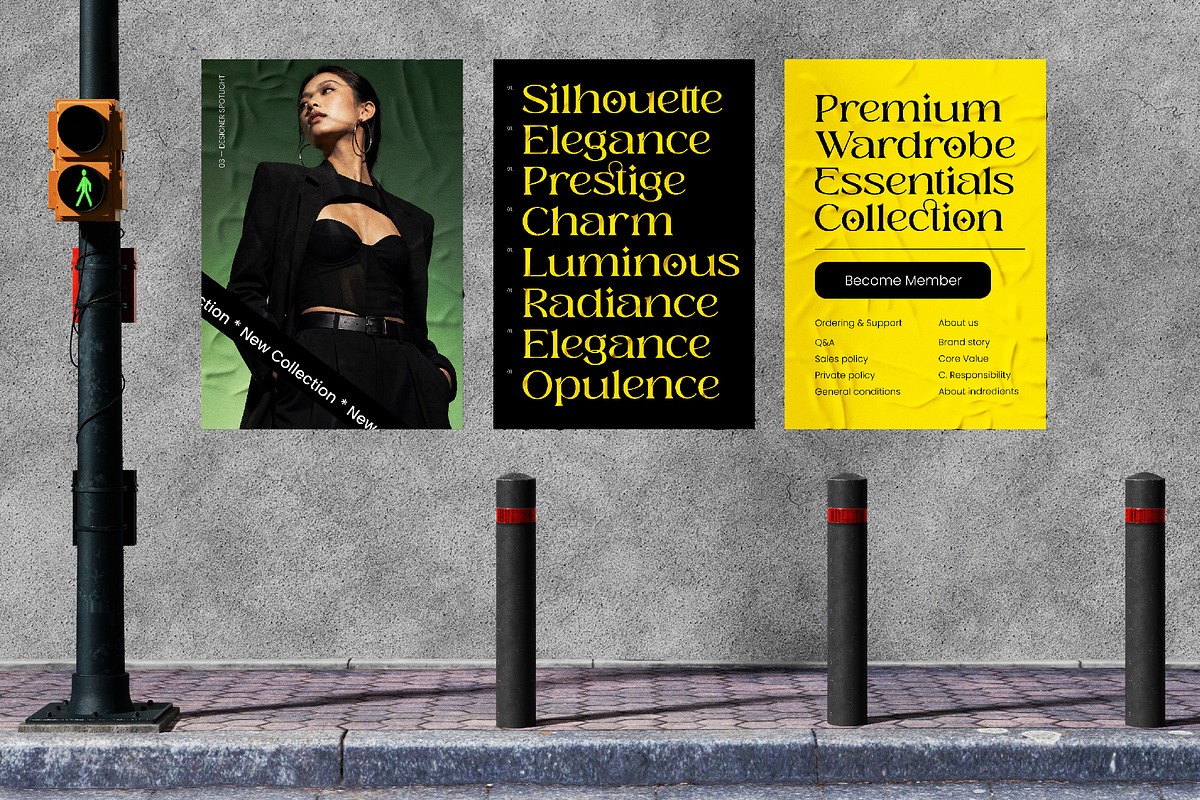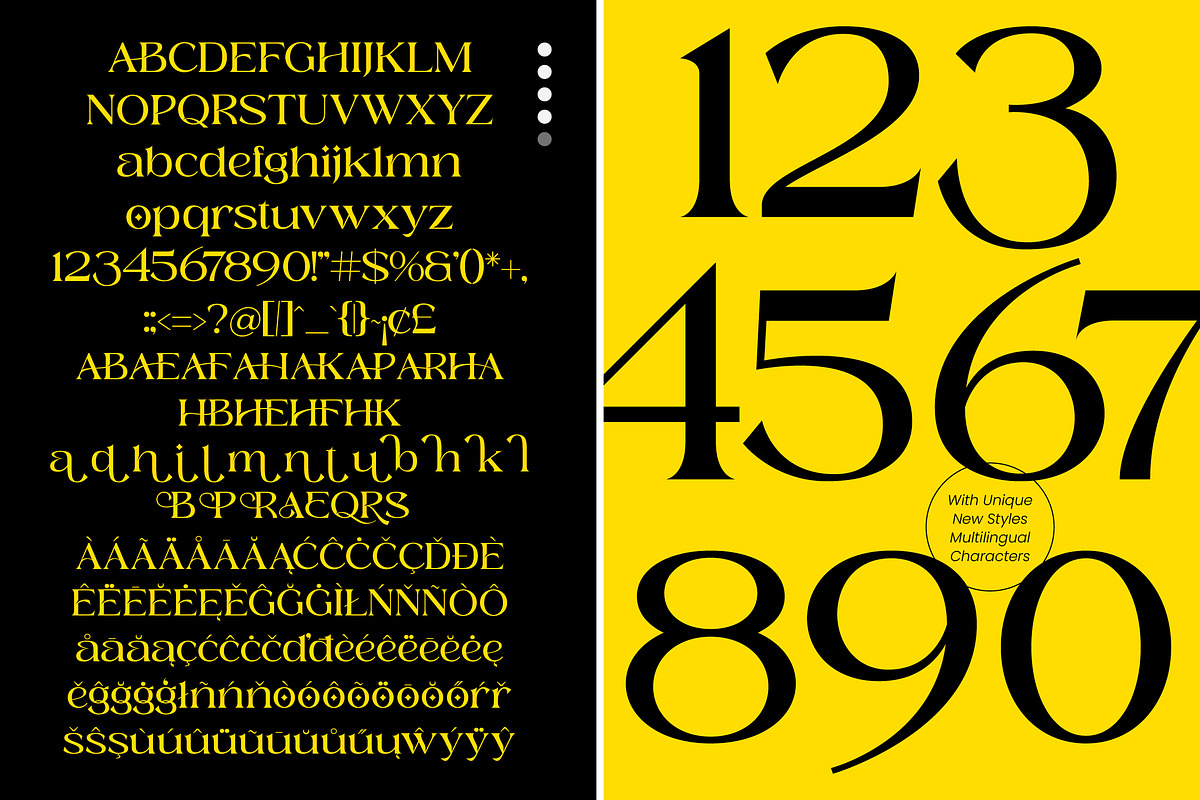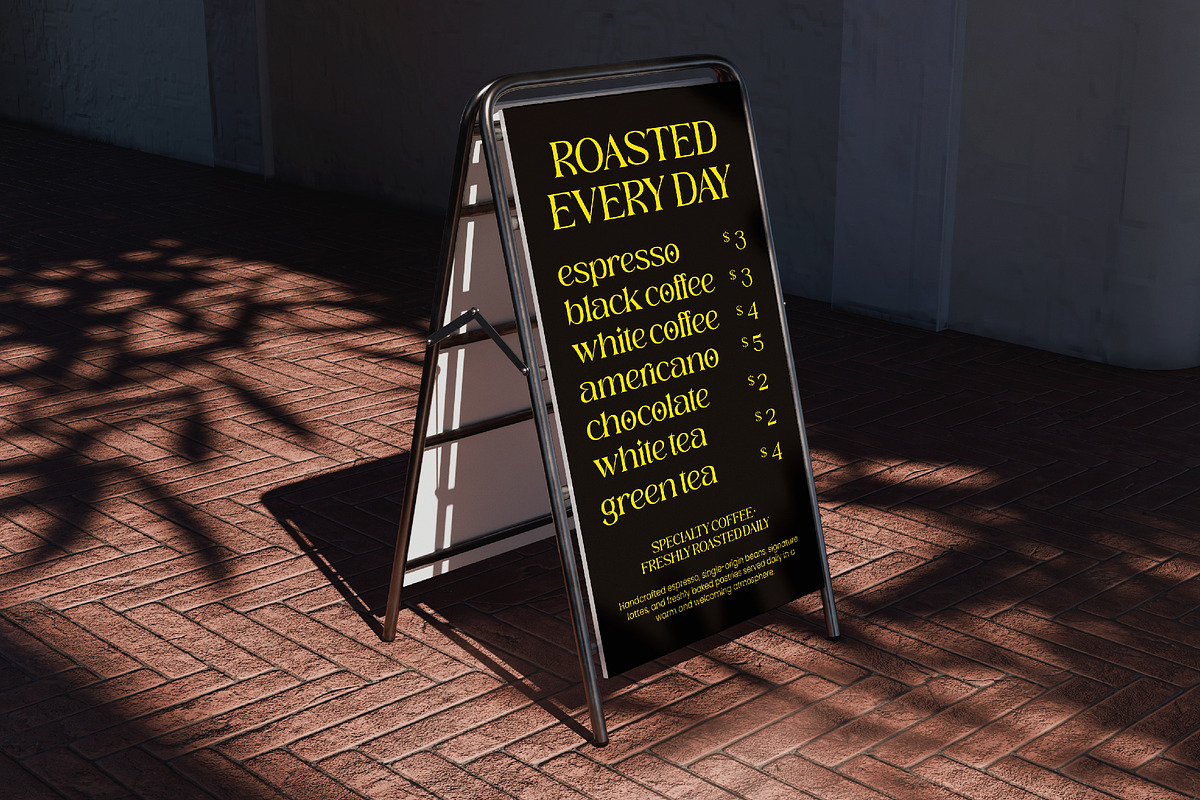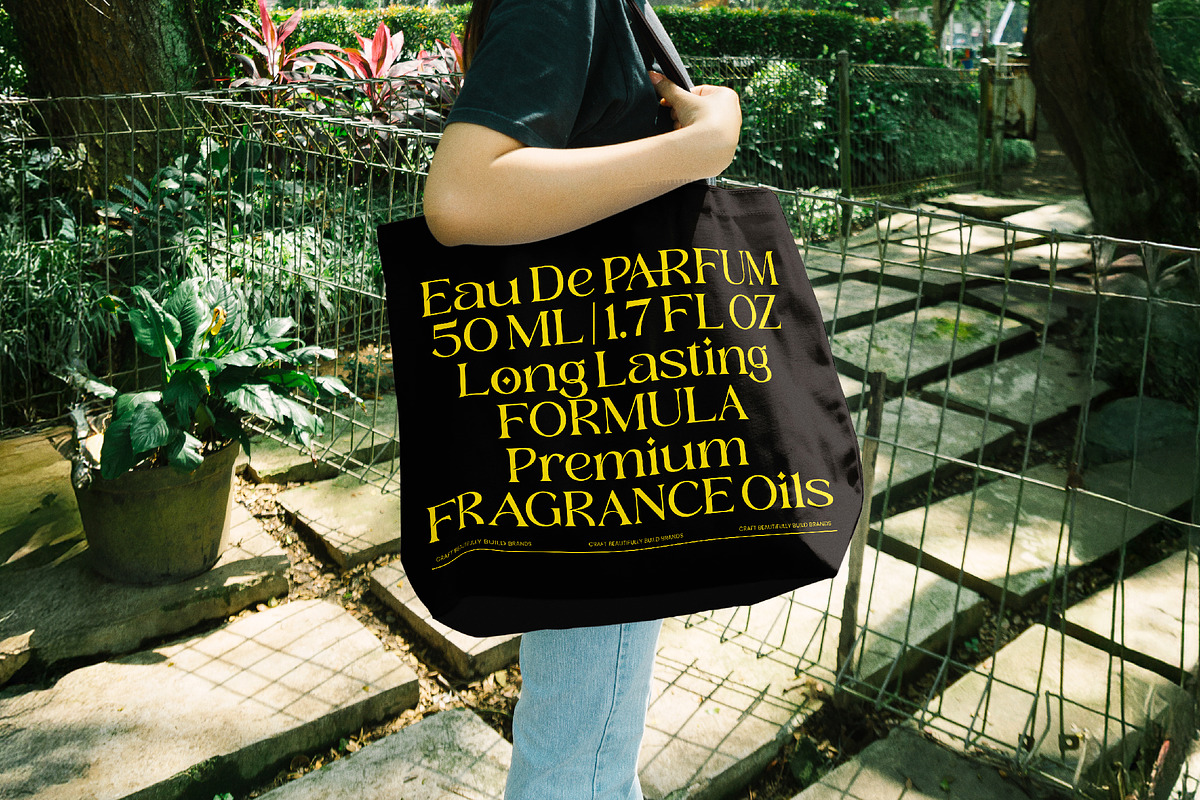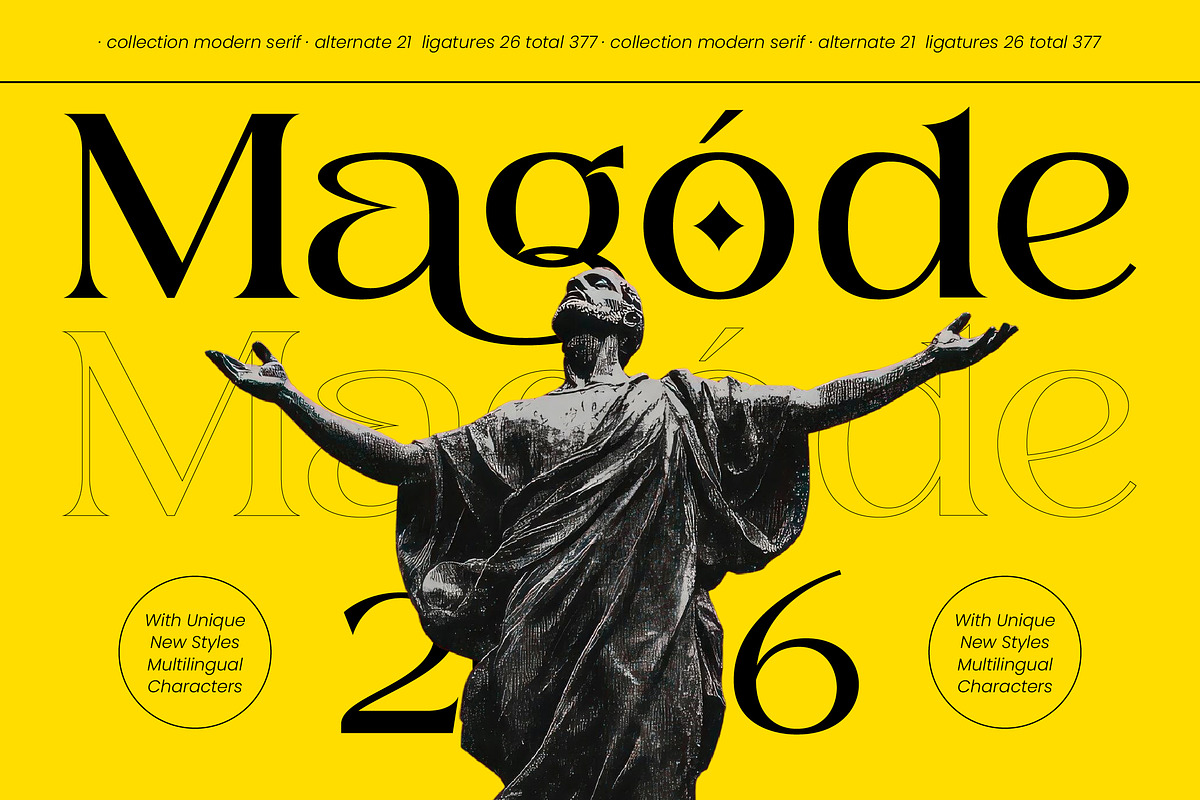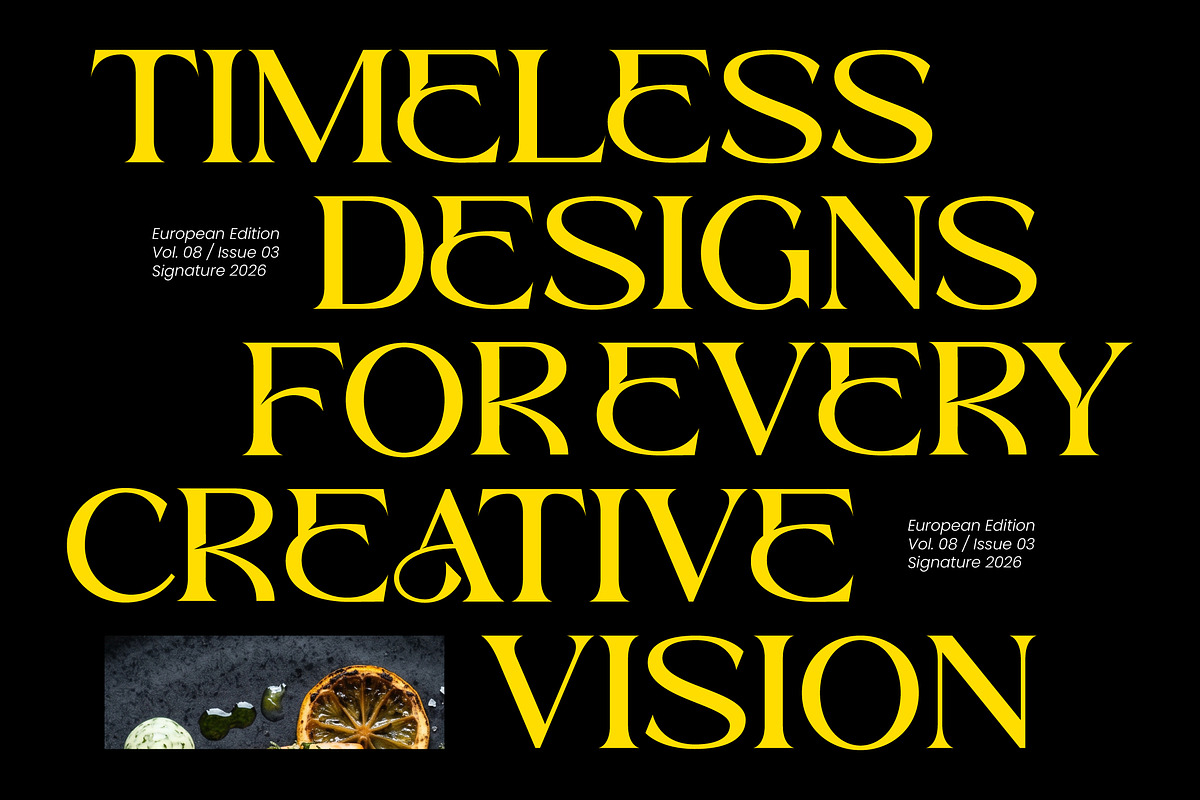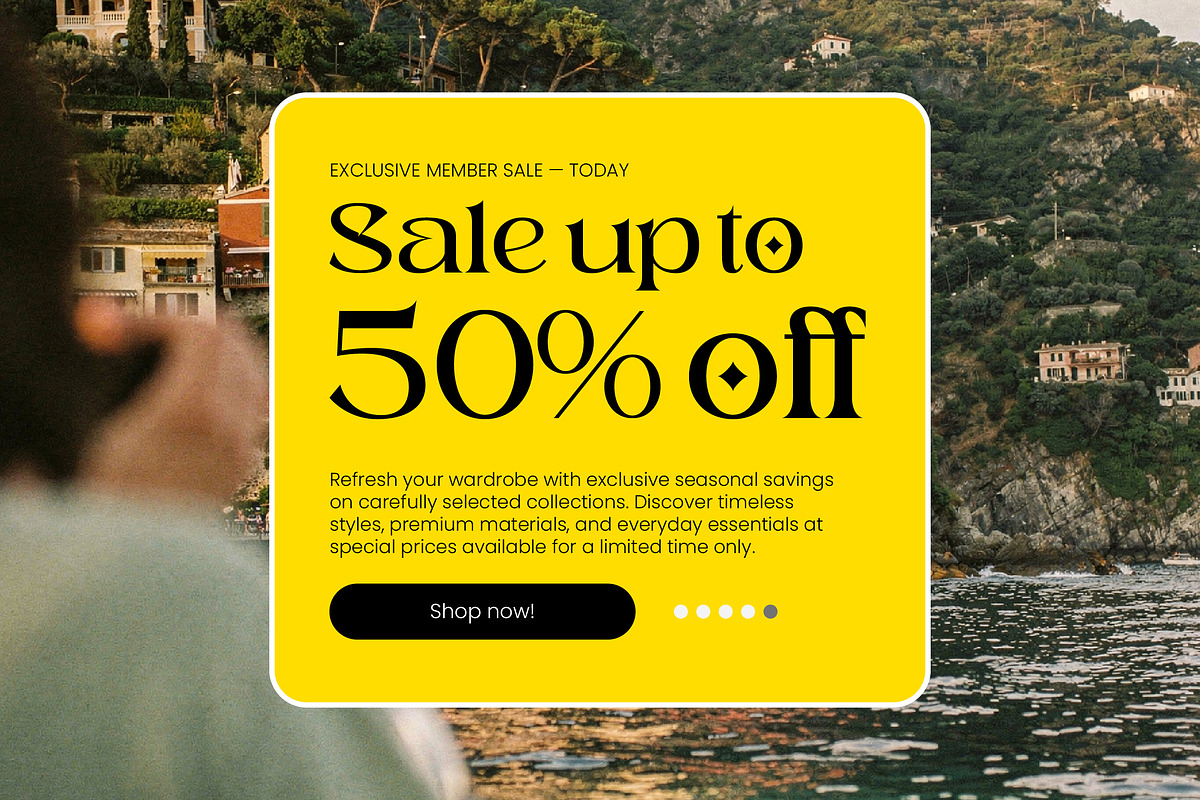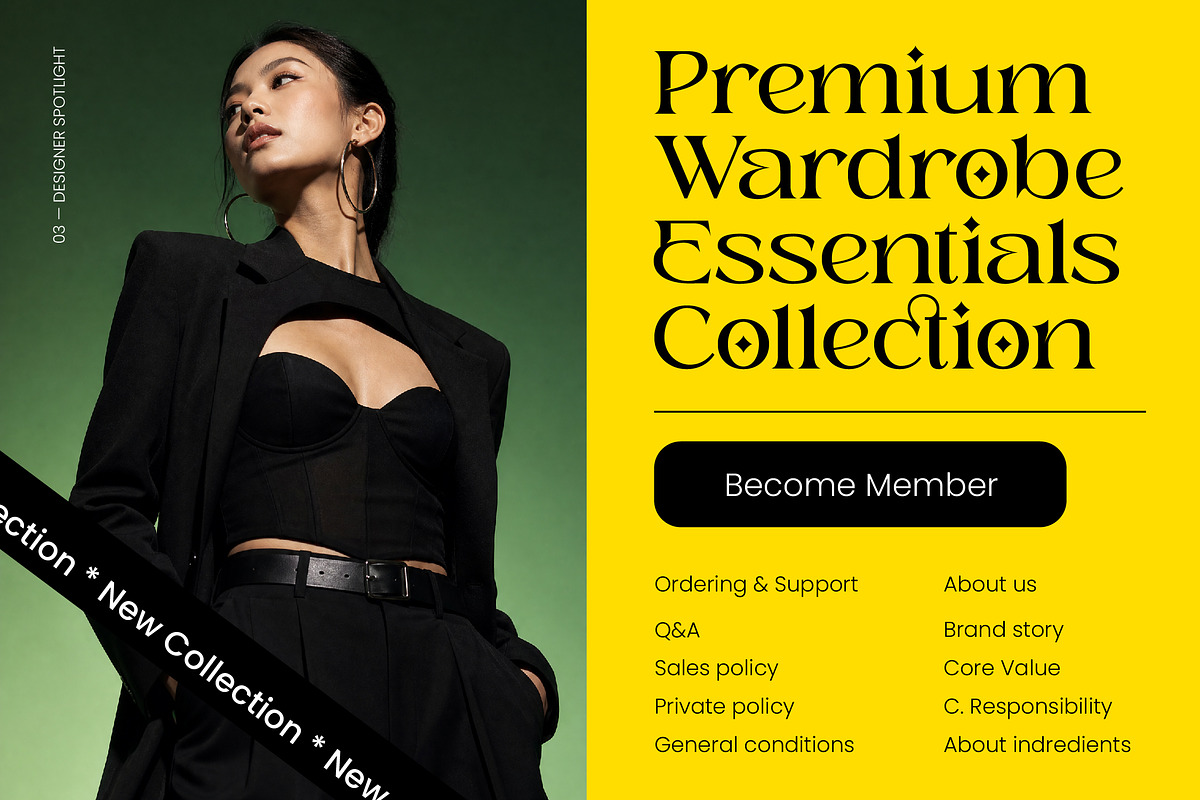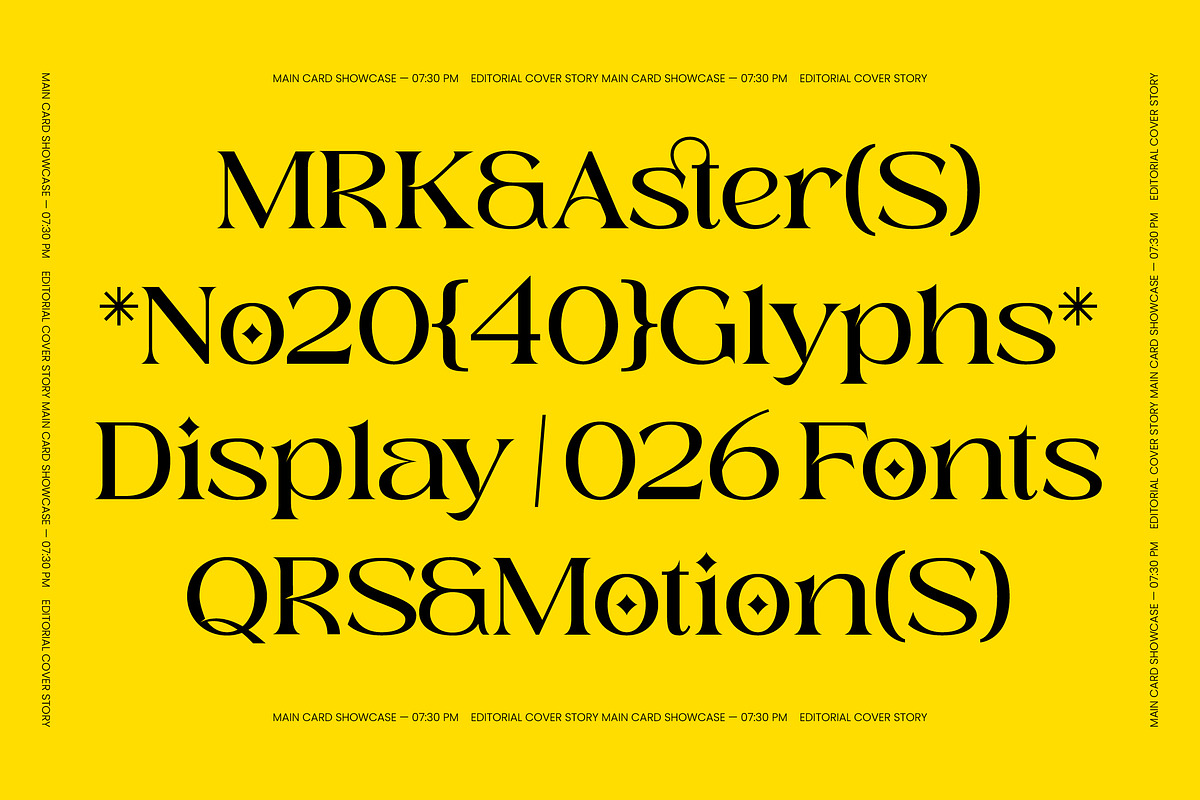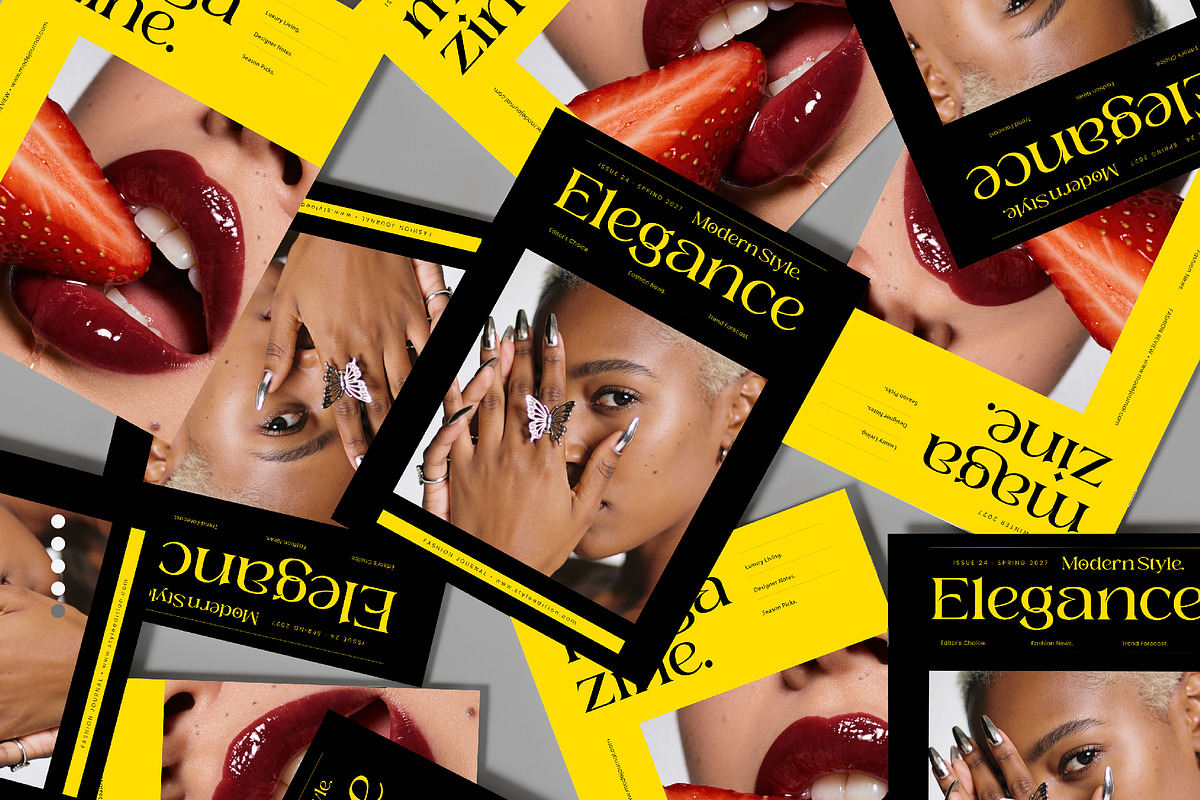
Magode Collection Modern Serif
Magode - Collection Modern Serif , Elevate your design projects with a touch of timeless sophistication and unparalleled grace. Magode - Collection Modern Serif is a masterpiece of sophisticated typography, blending the classic foundations of traditional serifs with a bold, modern serif aesthetic. Its striking high-contrast strokes and refined silhouettes command attention, ensuring that your headlines and titles exude an aura of premium quality and professional polish.
Precision meets artistry in every curve and glyph, offering designers a vast playground of creative possibilities. By incorporating a rich array of stylistic alternates and unique ligatures, Magode - Collection Modern Serif allows for bespoke typographic compositions that feel custom-made for any high-end brand. This typeface is not just a tool but a definitive statement piece, designed to provide maximum visual impact in both digital and print mediums.
Break geographical boundaries with a typeface built for the world. With its extensive multilingual support, Magode - Collection Modern Serif adapts seamlessly across global markets, making it incredibly versatile for international projects. This global accessibility ensures that your brand identity remains consistent and powerful regardless of the language, providing a cohesive experience for a diverse, worldwide audience.
Experience the perfect synergy of classical influence and contemporary flair, tailored specifically for the most demanding creative environments. Magode - Collection Modern Serif is the perfect choice for luxury branding, high-end packaging, and editorial design, where elegance is paramount. It is ideal for fashion magazines, upscale corporate identities, and premium product labels seeking a distinctive visual identity that resonates with an elite demographic.